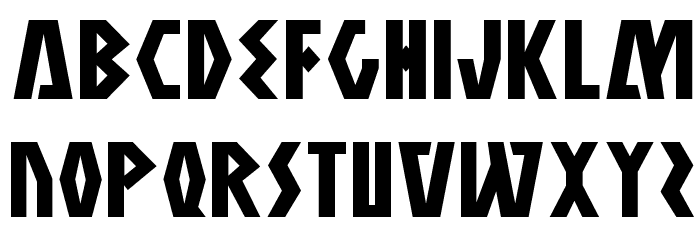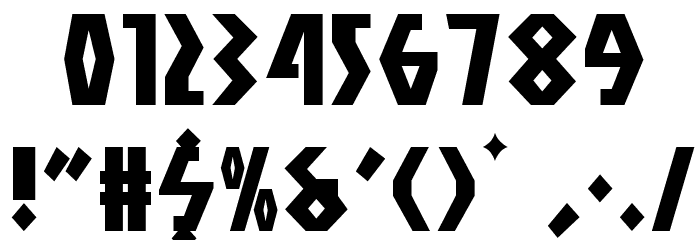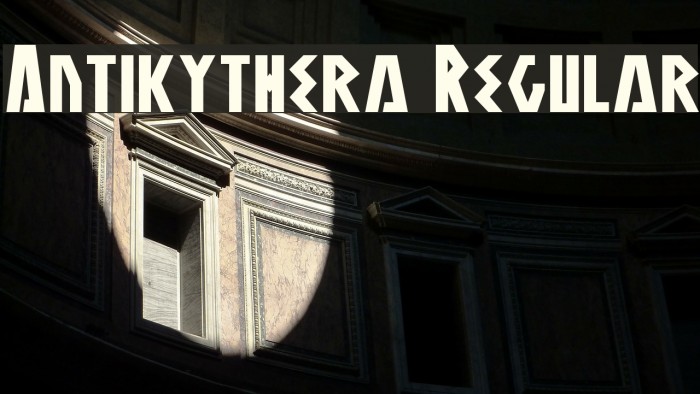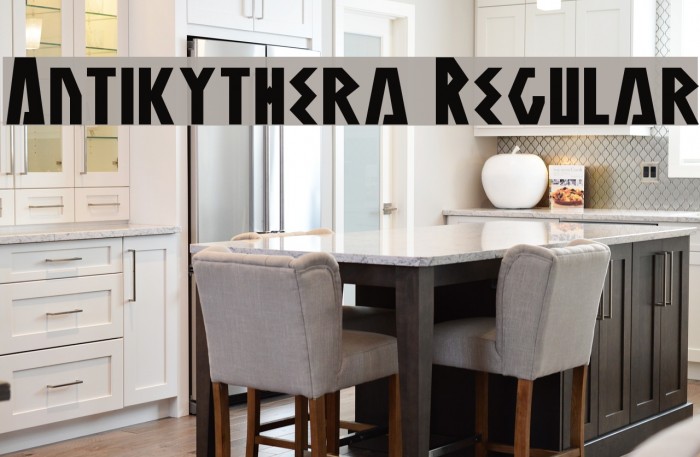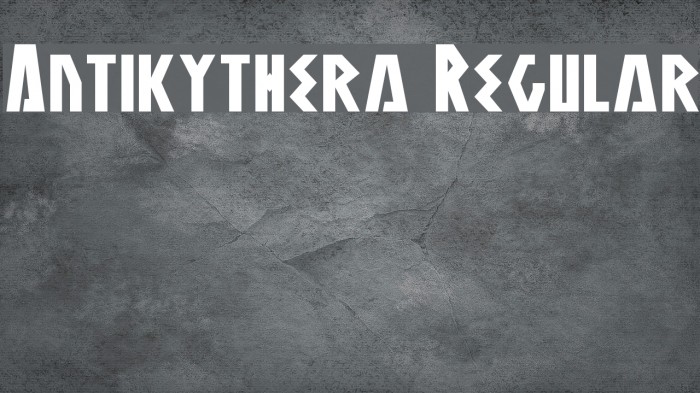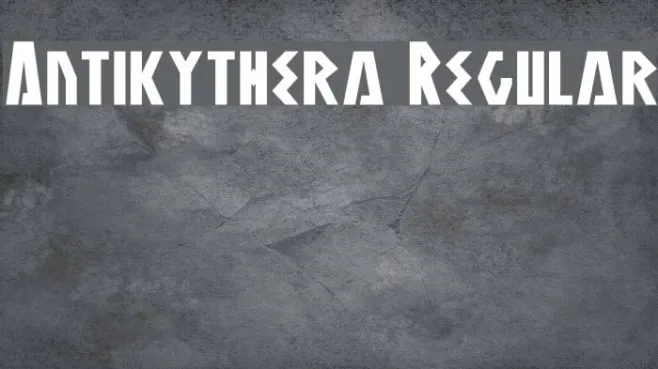
Antikythera Regular Font
This font features a bold and geometric design with sharp angles and a futuristic aesthetic. The characters are crafted with a distinct angularity, giving them a unique and striking appearance. The uppercase letters are particularly prominent, with a consistent height and width that create a cohesive look. The numbers and special characters maintain the same angular style, ensuring uniformity across all elements. This font's boldness and geometric nature make it stand out, ideal for projects that require a modern and edgy feel.
- Proposed Projects: Ideal for sci-fi themed posters, video game titles, or branding that requires a modern and edgy look.